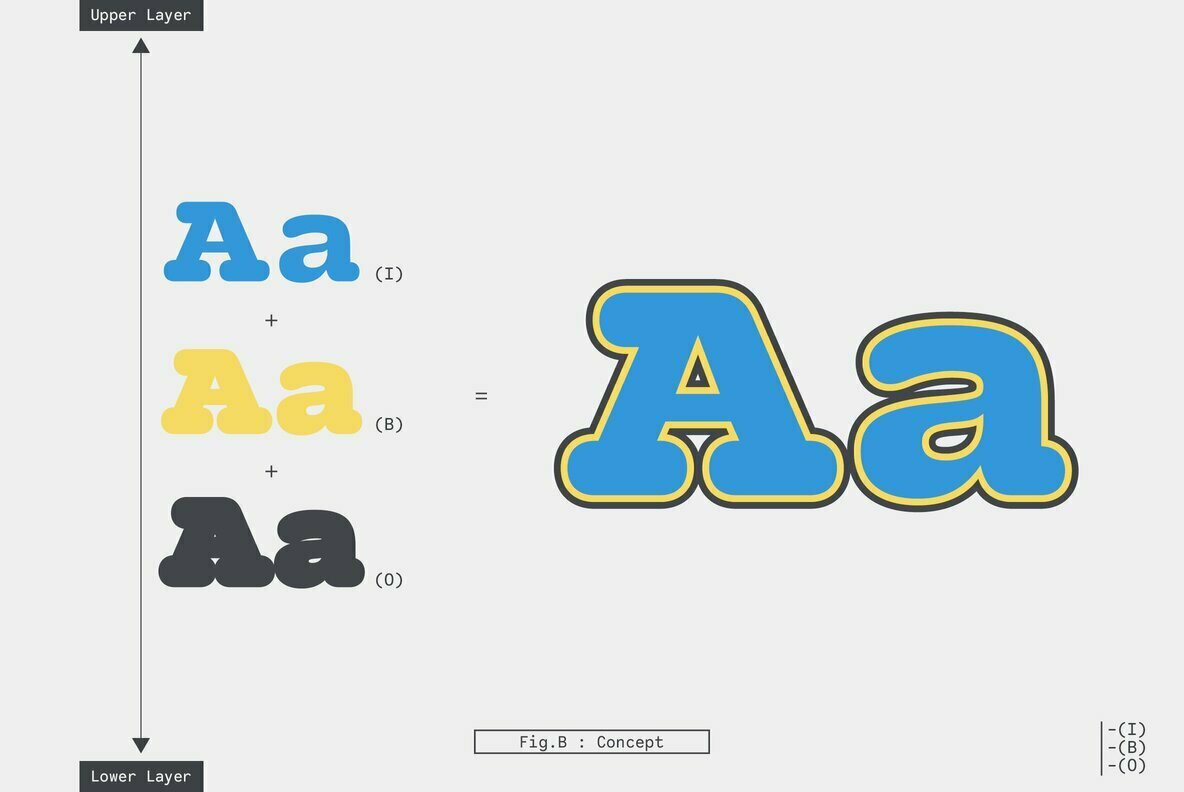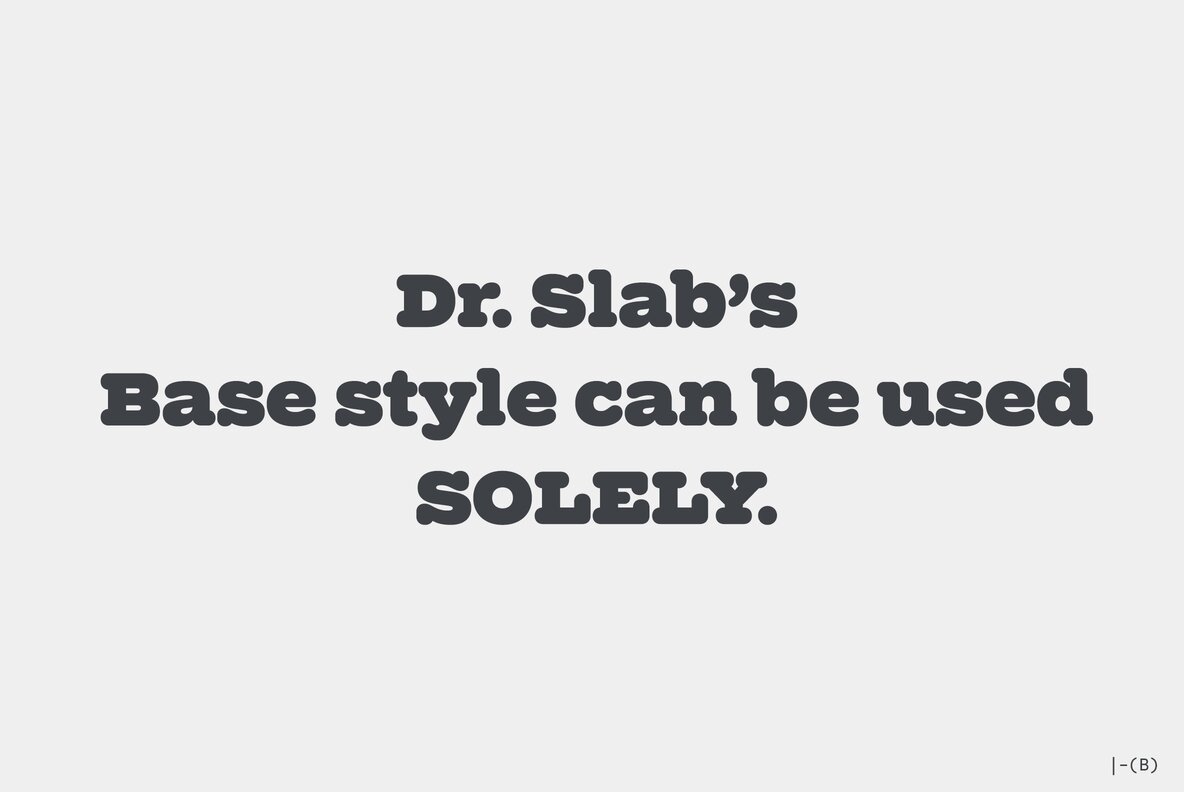
Dr Slab Font
Extraordinary impact and visual conspicuousness.
Dr Slab is a super 3D serif family for posters, logos and all display. The basic idea is not a brand new. Stacking type system have been used since before wood type age.
As you imagined, colored wood type(woodcut), many other engravings and contemporary printer machine print many colors separately with different printing plates for each colors.
Dr Slab uses the same system for 3d effect. Please use Photoshop or Illustrator, or your favorite graphic design apps that can handle layers. Layers are the printing plates of wood type. You should be able to change text color for each layers.
Dr Slab "Base" style is the core of this font family.
You can add effects by using the other styles(Rim, Shadow, Ext).
1. Type your text as you like.
2. Set font-name "Dr Slab" and font-style "Base"
3. Set color for "Base".
4. Duplicate the layer which includes "Base" text.
5. Set font-style and color for new layers.
6. Stacked layers in different font-style and color make the text in 3D.
Dr Slab "Base" style can be used solely.
Rounded slabs add soft, cute and casual impressions to your design.